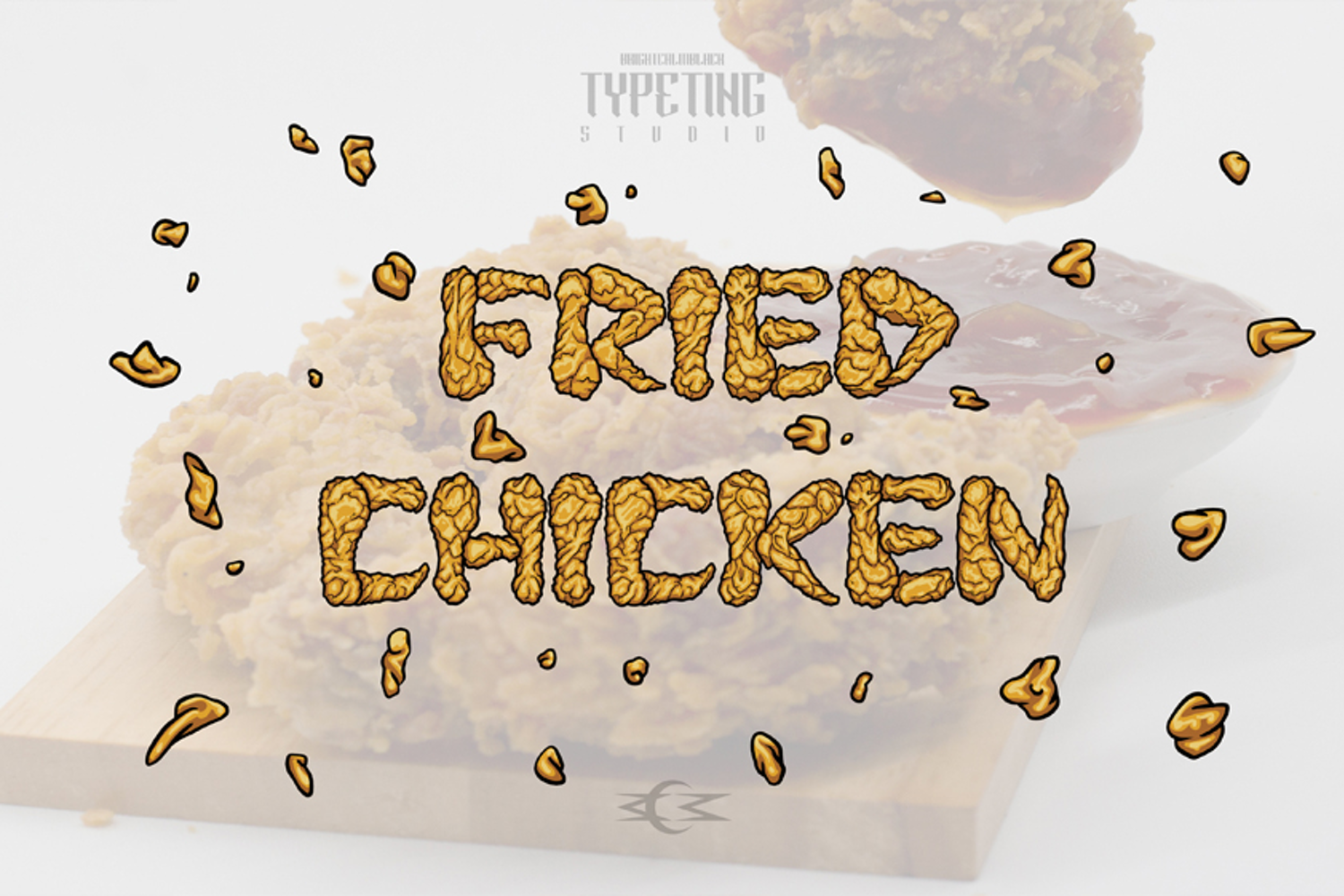
Fried chicken
fried chicken
This unique font, inspired by the texture of crispy fried chicken, creates a fun, bold, and appetizing impression—perfect for culinary branding, posters, and creative content that wants to stand out and be memorable.
Fried chicken